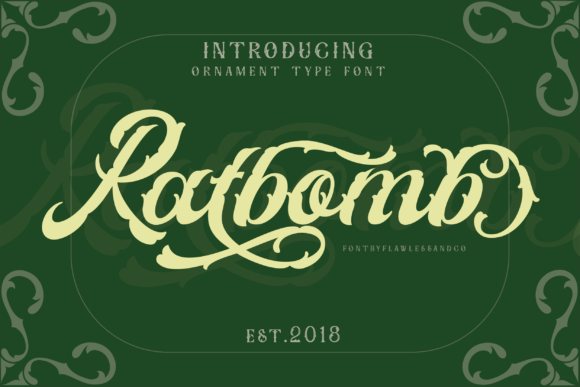
Journey into the enchanting world of typography and discover the Ratbomb font, a decorative masterpiece that will captivate your senses and transform your designs. Immerse yourself in the beauty of its ornate characters, each meticulously designed to evoke a sense of nostalgia and charm. Experience the allure of this extraordinary font, meticulously crafted to bring a touch of elegance and whimsy to your creative endeavors. Unleash your imagination and let Ratbomb take you on an unforgettable journey through the realms of artistic expression.
With Ratbomb, the possibilities are endless. Elevate your branding efforts with a logo that exudes timeless sophistication, captivating the attention of your audience. Craft stunning invitations and greeting cards that carry a personal touch, leaving a lasting impression on your loved ones. Embark on a creative adventure, designing posters and flyers that burst with vibrancy and intrigue. Let Ratbomb be your muse as you create social media posts that stand out from the crowd, captivating the hearts of your followers.
Experience the magic of Ratbomb as you design enchanting wedding stationery, adding an air of romance and elegance to your special day. Create eye-catching book covers that beckon readers to delve into the worlds you've created. Design packaging that exudes luxury and exclusivity, enticing customers to indulge in your products. Let Ratbomb be your secret weapon, transforming ordinary designs into extraordinary works of art.
Discover the versatility of Ratbomb, a font that seamlessly adapts to a myriad of languages, including Russian. Whether you're creating marketing materials, website designs, or personal projects, Ratbomb effortlessly accommodates your needs. Embrace the beauty of diversity and let Ratbomb bridge the gaps between cultures, allowing your designs to resonate with audiences worldwide.